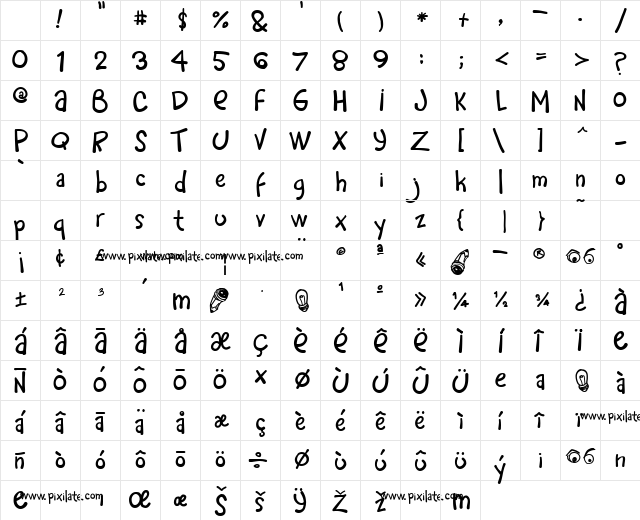
Rafa is a composed and adaptable typeface that performs quietly and consistently across a wide range of design contexts. Its bold stroke weight gives it real presence on the page.
Pro Tip: Use Rafa in both headline and body roles to test its range before committing to a single application.